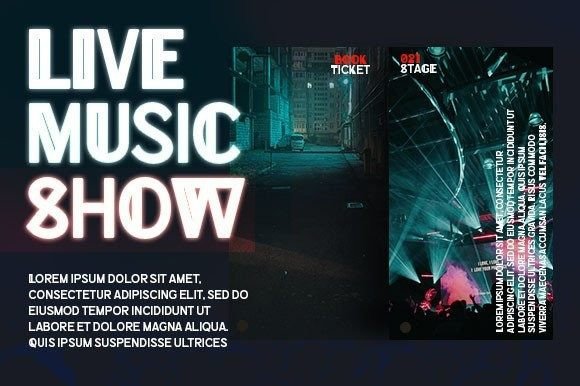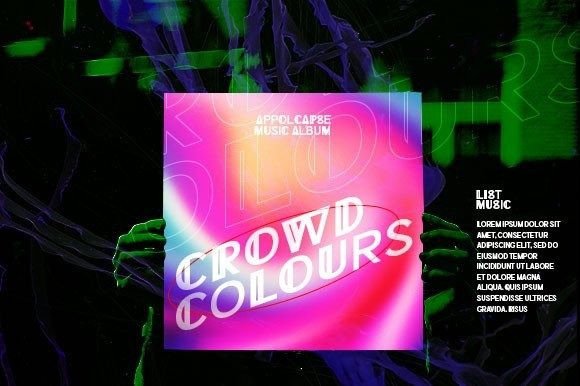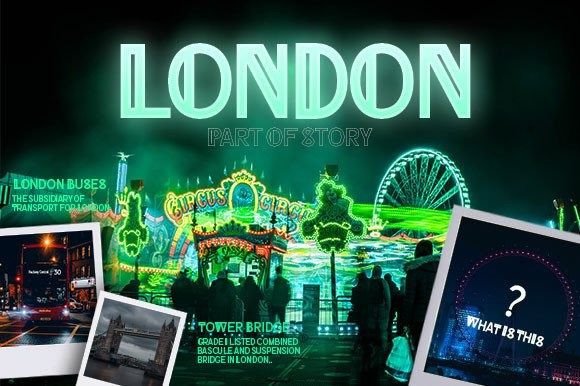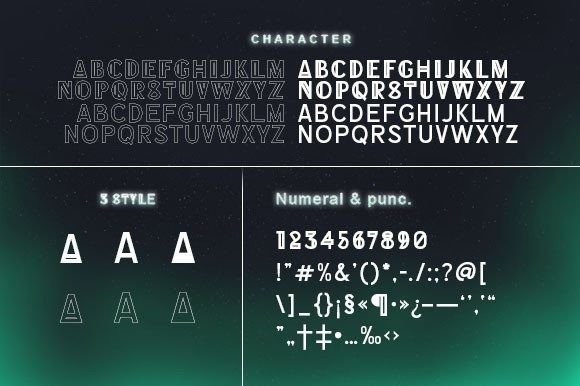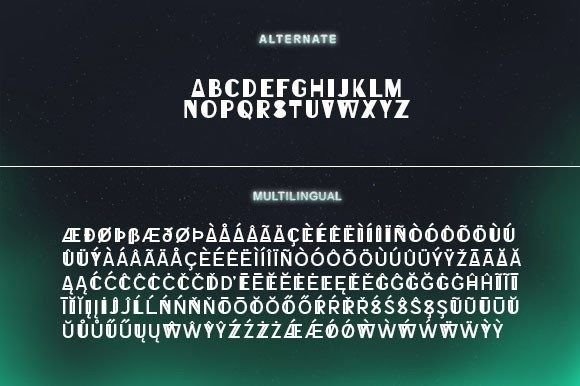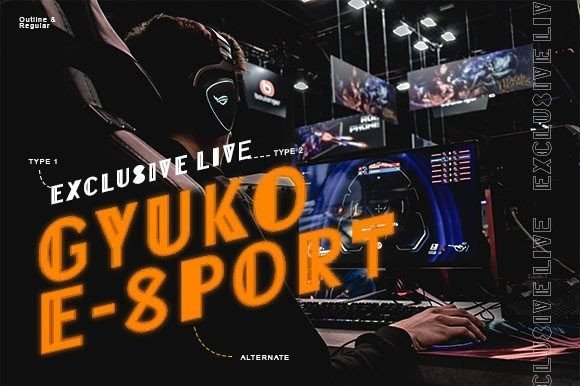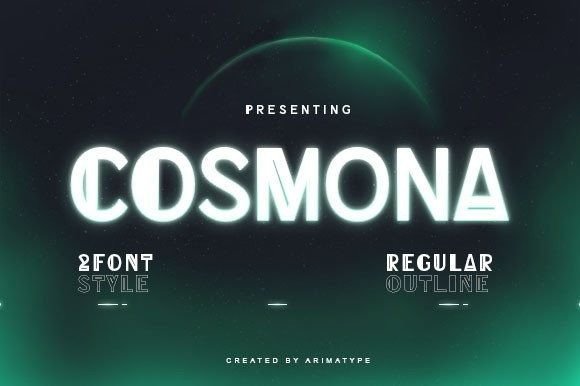
Cosmona Font: Elevate Your Designs with a Bold and Modern Neon Twist
In the world of typography, fonts play a crucial role in conveying the tone and aesthetic of a design. For designers and crafters looking to add a touch of modernity and futurism to their projects, Cosmona Font is an excellent choice. This bold and cool display font is inspired by the retro neon style of the twentieth century, but with a fresh and modern twist.
The Inspiration Behind Cosmona Font
Cosmona Font draws inspiration from the iconic neon signs that once lit up the city streets of the 20th century. The font’s design is reminiscent of the classic neon style, but with a modern and sleek approach. The result is a font that exudes elegance, sophistication, and a touch of nostalgia.
What Makes Cosmona Font Stand Out
Cosmona Font boasts several features that make it an excellent addition to any design project. Here are a few reasons why:
- Bold and Eye-Catching: Cosmona Font is a bold and attention-grabbing font that demands to be noticed. Its thick lines and curves make it perfect for headlines, titles, and other display text.
- Modern and Fresh: Despite being inspired by a retro style, Cosmona Font has a distinctly modern feel to it. Its clean lines and minimalist approach make it perfect for contemporary designs.
- Neon Light Style: The font’s neon light style gives it a unique and captivating glow. This feature makes it ideal for designs that require a touch of futurism and sophistication.
- Elegant and Stylish: Cosmona Font is more than just a bold and eye-catching font – it’s also elegant and stylish. Its curves and lines are carefully crafted to create a sense of refinement and luxury.
Perfect for Futuristic and Awesome Projects
Cosmona Font is perfect for designers and crafters working on projects that require a futuristic and modern aesthetic. Whether you’re designing a logo, brochure, or website, this font is sure to elevate your design to the next level. Some examples of projects that Cosmona Font would be well-suited for include:
- Futuristic Logos: Cosmona Font’s bold and neon light style makes it perfect for logos that require a modern and edgy look.
- Sci-Fi and Cyberpunk Designs: The font’s futuristic aesthetic makes it ideal for sci-fi and cyberpunk-themed designs, such as posters, flyers, and brochures.
- Technology and Gaming Websites: Cosmona Font’s modern and sleek design makes it perfect for technology and gaming websites that require a bold and attention-grabbing font.
Tips for Using Cosmona Font
To get the most out of Cosmona Font, here are a few tips to keep in mind:
- Use it as a Display Font: Cosmona Font is designed to be used as a display font, so use it sparingly for headlines, titles, and other prominent text.
- Pair it with a Simple Font: To create visual balance, pair Cosmona Font with a simple and clean font for body text.
- Experiment with Colors: Cosmona Font’s neon light style makes it perfect for experimenting with bright and bold colors. Try using it with neon colors, metallic finishes, or gradient effects.
Cosmona Font is a bold and modern display font that’s perfect for designers and crafters looking to add a touch of futurism to their projects. Its unique blend of retro and modern styles makes it a versatile font that can be used in a wide range of applications. Whether you’re designing a logo, website, or print material, Cosmona Font is sure to elevate your design to the next level.